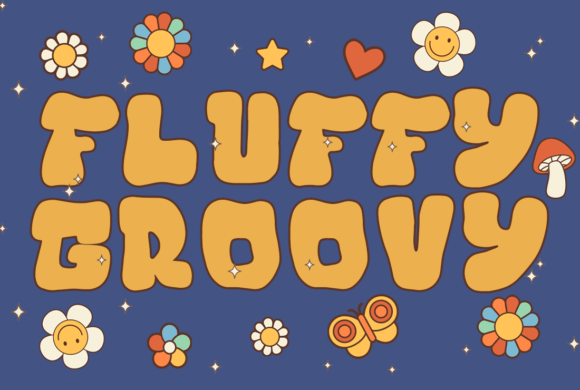
Introducing the Fluffy Groovy Font Family: Unleash Your Creative Spark!
In the realm of digital artistry, typography holds the power to transform words into captivating visual masterpieces. Allow us to introduce Fluffy Groovy, the display font family that will ignite your creative spirit and leave an indelible mark on your designs. Crafted with meticulous care by the font artisans at Leaked Ink, Fluffy Groovy is a symphony of retro charm, groovy allure, and contemporary flair.
Step into a world of boundless creativity with Fluffy Groovy, your ultimate companion for dazzling T-shirts, tote bags, hats, stickers, logos, and more. Watch as your designs take on a life of their own, evoking emotions and capturing hearts. Fluffy Groovy is that magical key that unlocks a treasure chest of artistic possibilities, empowering you to leave a lasting impression on your audience.
Picture this: An invitation adorned with Fluffy Groovy's playful curves and groovy vibes, hinting at an unforgettable celebration. Or envision a logo that radiates personality and charm, thanks to Fluffy Groovy's eye-catching presence. From whimsical quotes to heartfelt cards, Fluffy Groovy weaves its magic, transforming ordinary words into captivating works of art.
But there's more to Fluffy Groovy than meets the eye. Behind its cheerful facade lies a font of remarkable versatility. With its wide range of weights and styles, Fluffy Groovy effortlessly adapts to your every creative need. Whether you seek a bold and commanding statement or a delicate whisper of elegance, Fluffy Groovy delivers flawlessly.
And if you're captivated by the allure of dynamic LED displays, Fluffy Groovy is your perfect partner. Its meticulously crafted characters dance across screens with vibrant energy, ensuring your messages shine brighter than ever before.
So, embark on a creative odyssey with Fluffy Groovy, the display font family that sets your imagination free. Let your designs blossom into masterpieces, captivating hearts and minds wherever they may wander.